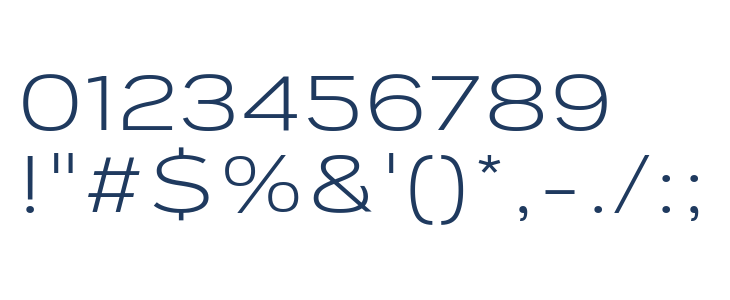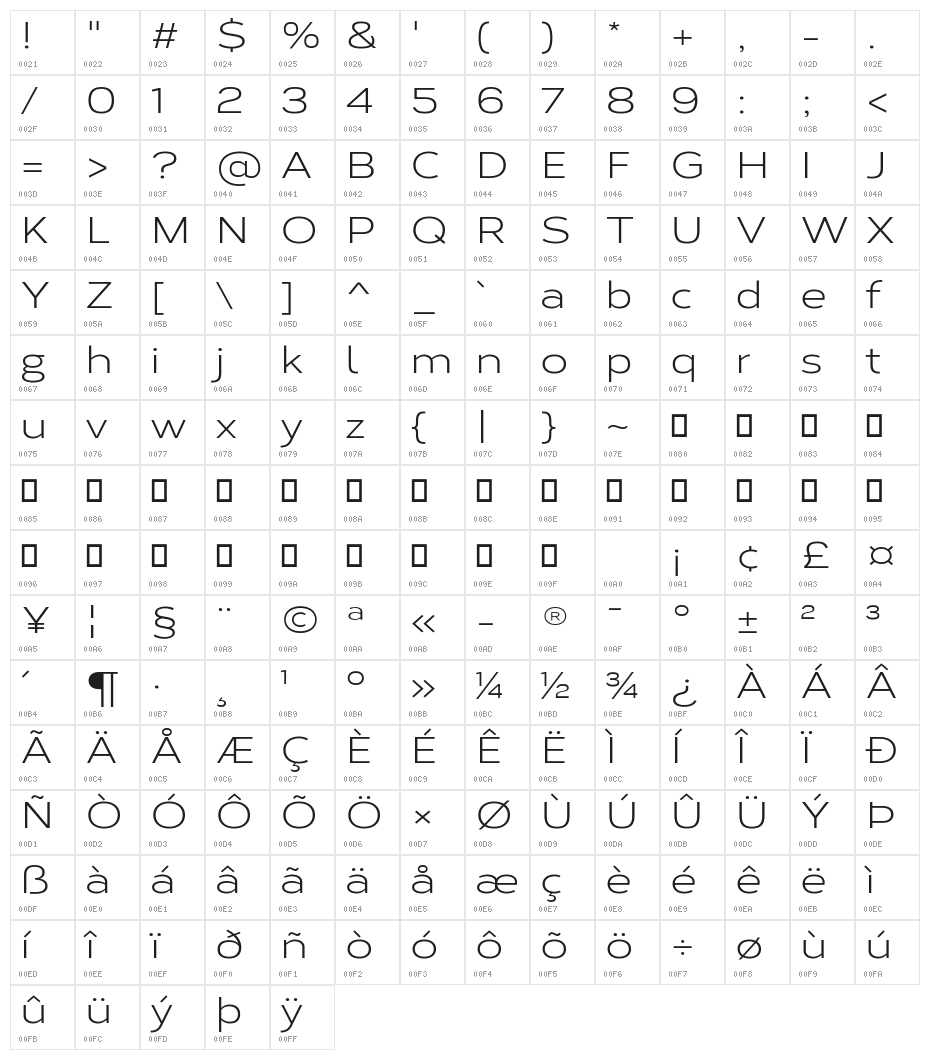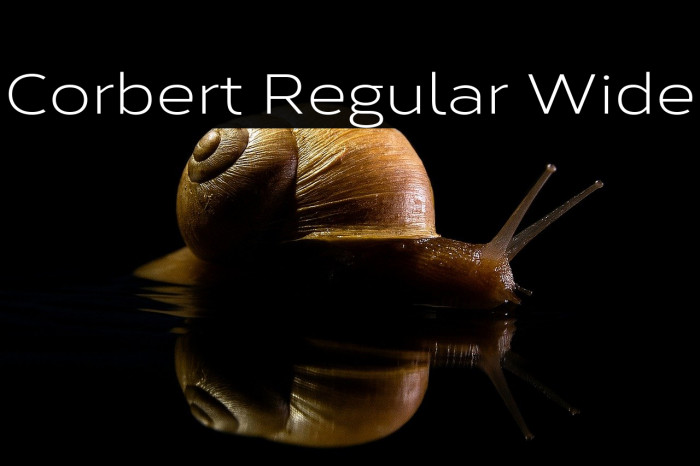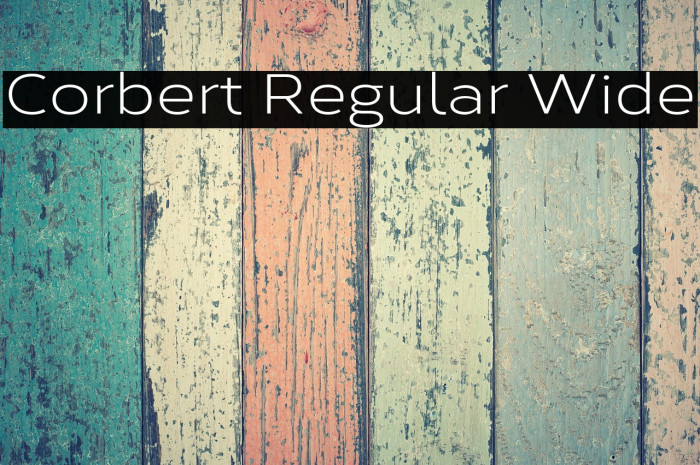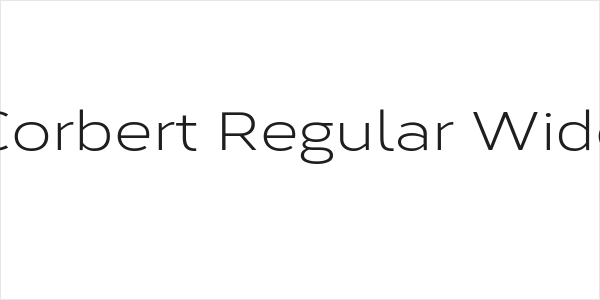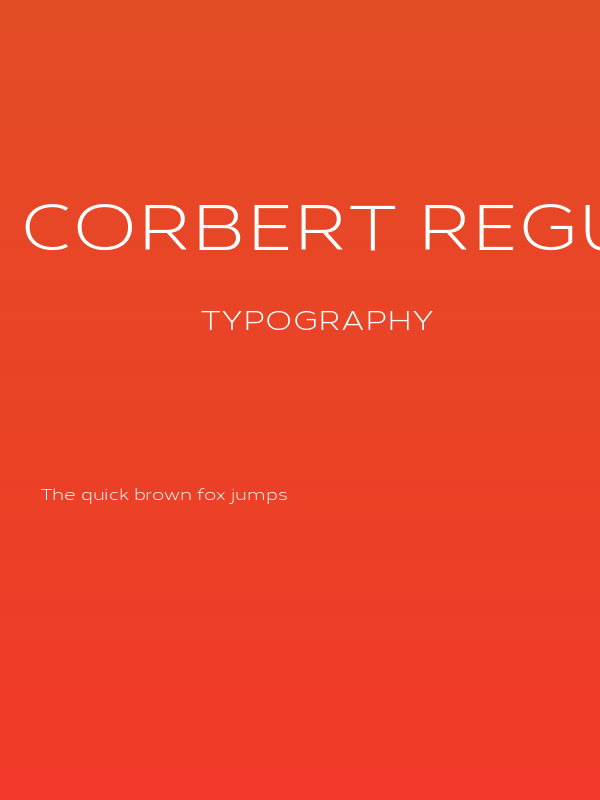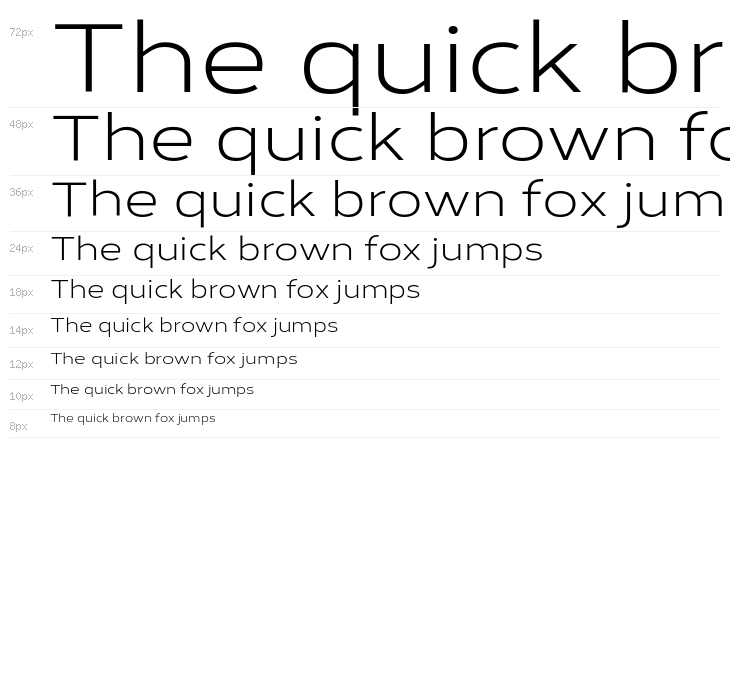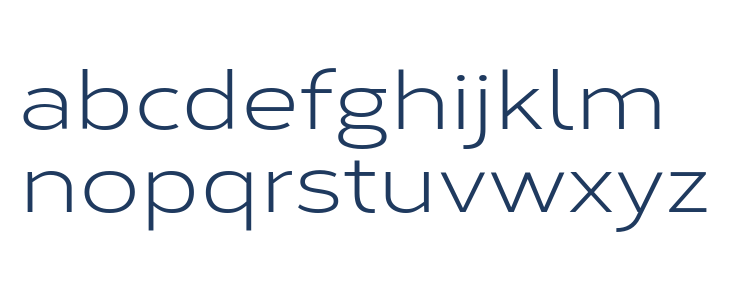
Corbert Regular Wide Font
Corbert Regular Wide Description
This font features a clean and modern sans-serif design with a wide stance, providing excellent readability and a contemporary aesthetic. The characters are evenly spaced, contributing to its legibility. The uppercase letters are bold and assertive, while the lowercase letters maintain a consistent and harmonious flow. The numerals are clear and distinct, making them suitable for various applications. The special characters are well-defined, adding versatility to the font's use. Overall, this font is ideal for projects that require a modern and professional look.
Proposed ProjectsIdeal for branding, advertising, web design, and corporate materials.